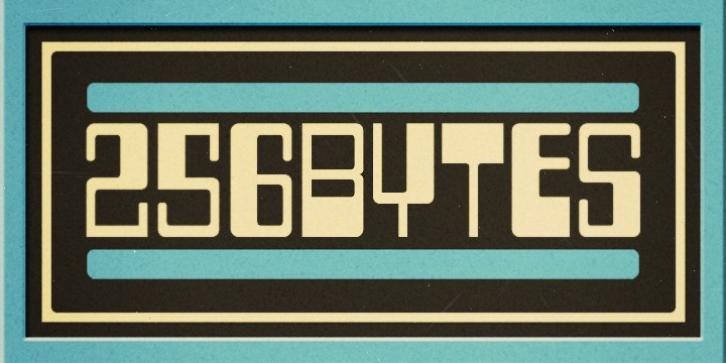
Ray Larabie
Typodermic
256 Bytes is a small cap techno font inspired by the logo for one of the first home computers: the Altair 8800. It’s ideally suited to tech blog headlines.